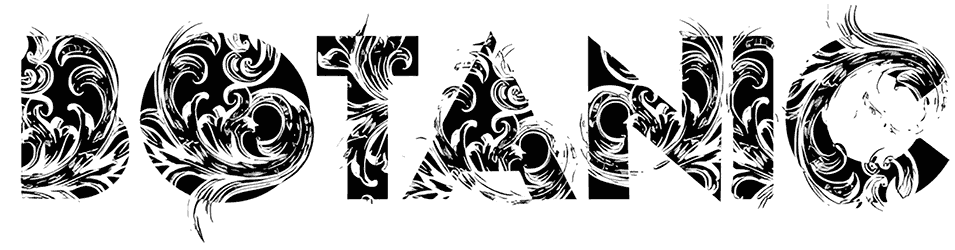
Botanic Font
Using Botanic, you can create a special personality style in your writings that looks very luxurious and glamorous. All the letters in this ornate font are designed with great care and have complex patterns in their hearts.
Even without lowercase letters and numbers, it can work well for luxury brands and high-end products. Botanic’s stylish embellishments and curved edges, implemented with a floral theme, look essential for wedding invitations and greeting cards.
Three overlapping fonts.
Kerning revised